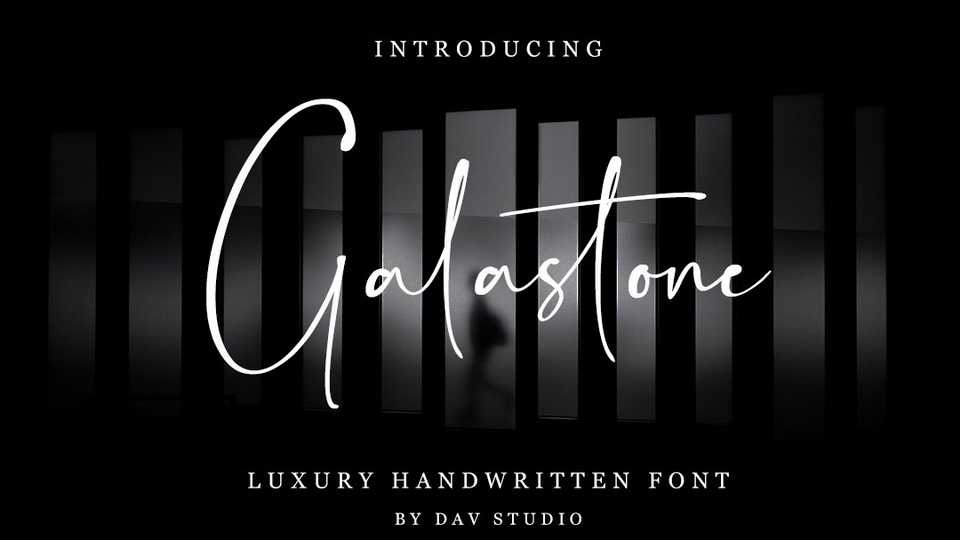
Download Galastone font, a luxury signature style handwritten script with a unique impression. Galastone is very suitable for branding, invitations, watermarks, photography, labels and more.
Designer: Dav Studio